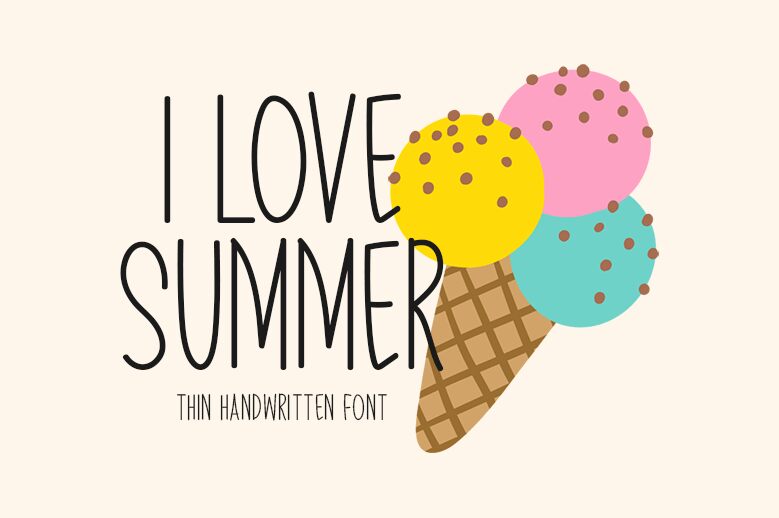
I Love Summer, designed by Md Shohail Bhuian, captivates with its playful handwritten style that evokes a sense of warmth and joy. The light strokes gracefully dance across the page, offering an airy feel that's both inviting and fresh. Its condensed form adds a modern twist, allowing for versatile use in various layouts without compromising clarity.
This font shines in summer-themed projects, youthful branding, or casual invitations where a friendly touch is essential. Perfect for social media graphics or fun merchandise designs, I Love Summer brings a lively spirit to any context it graces. Its charming aesthetic invites creativity and embodies the essence of carefree days under the sun.
I Love Summer